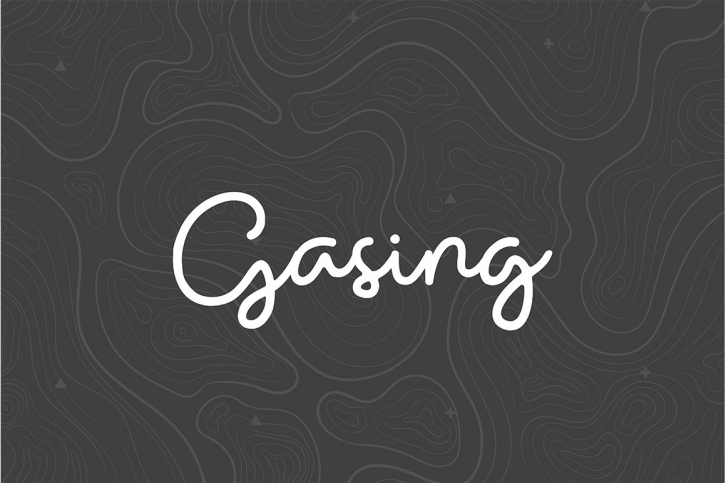
Gasing Monoline Script is a trendy and unique font with an authentic style. It was designed by Grontype and it's a great choice for creative people who need such a font. It was released on October 27, 2020 and the file size is 11.74 MB. Gasing Monoline Script will add an organic vibe to any design idea!